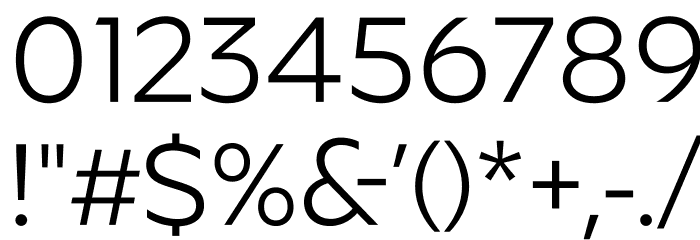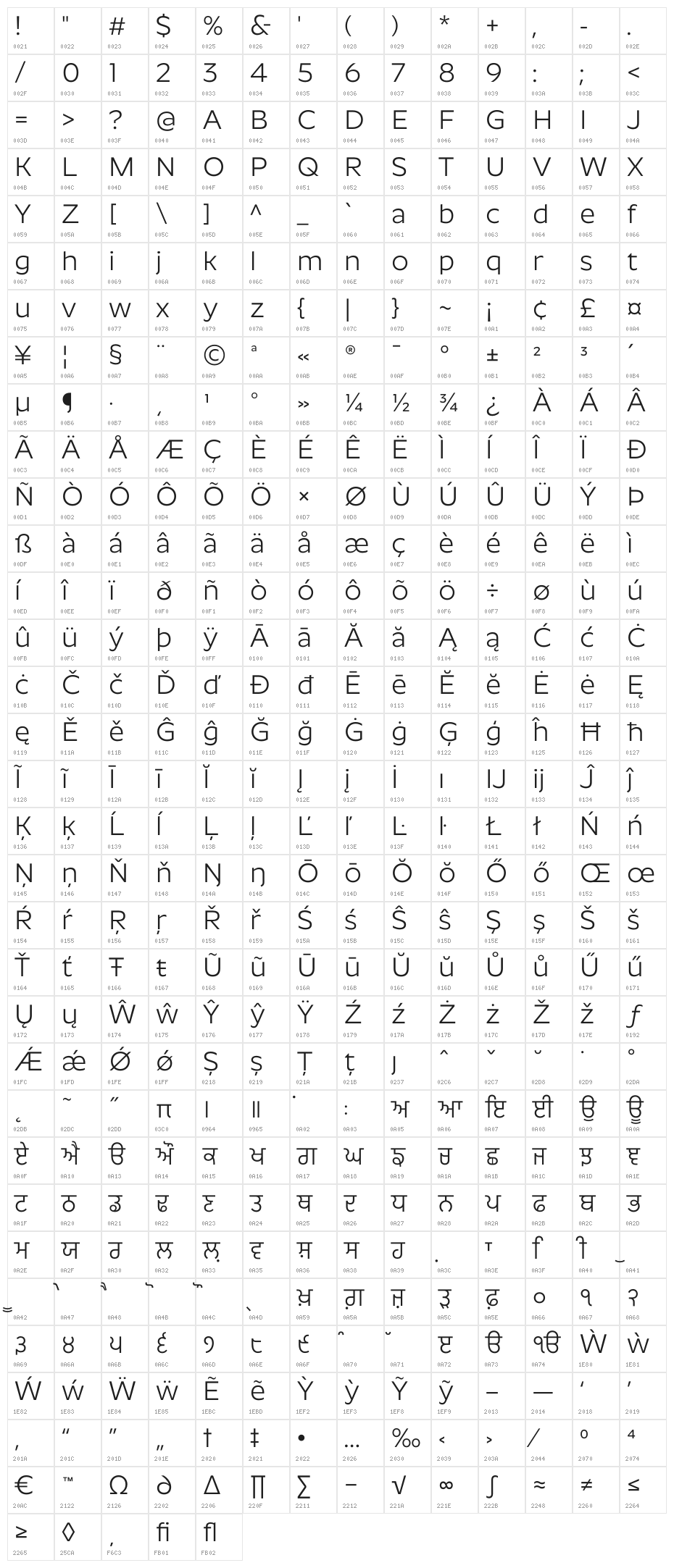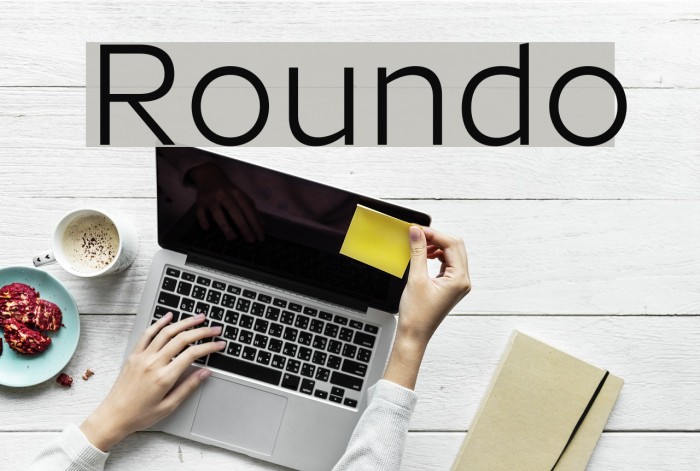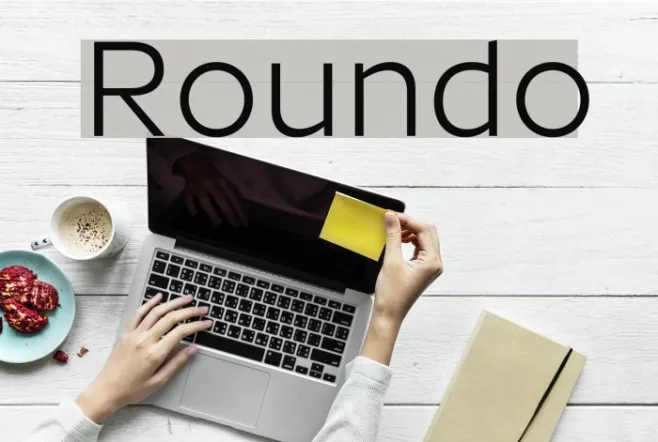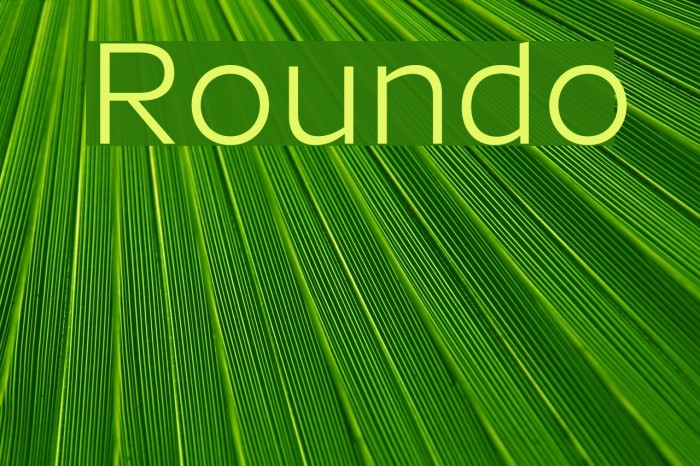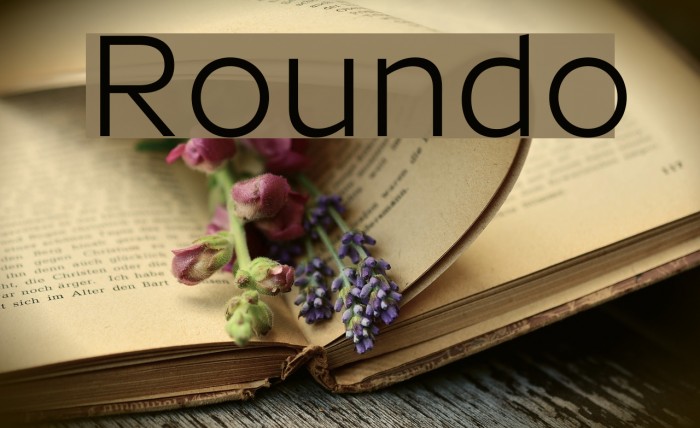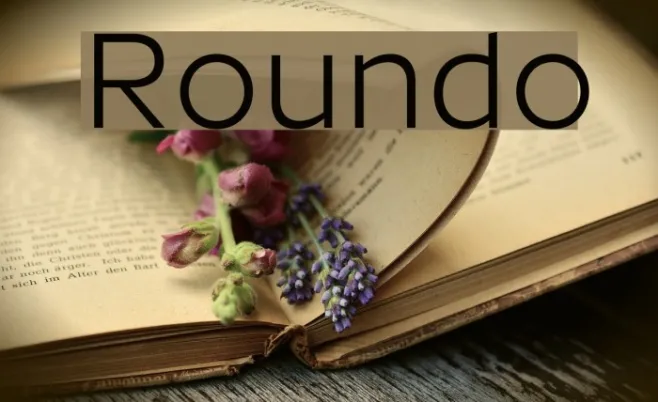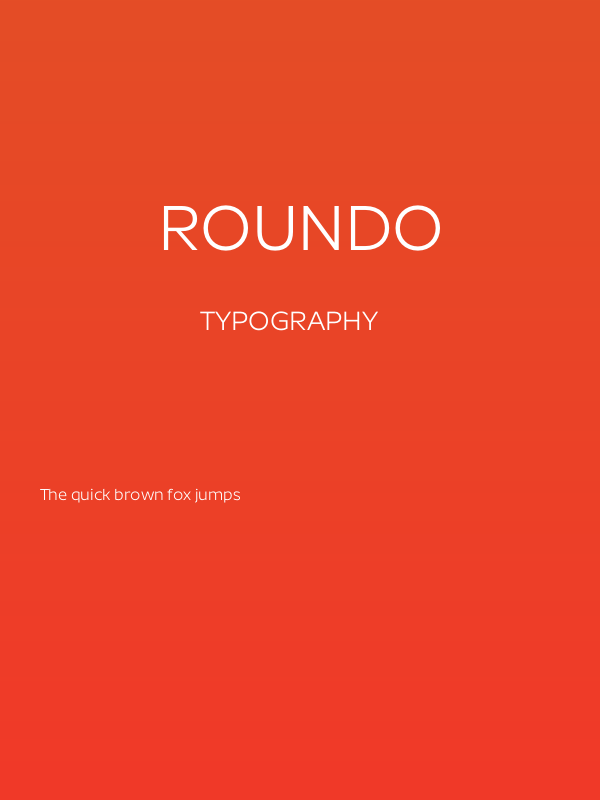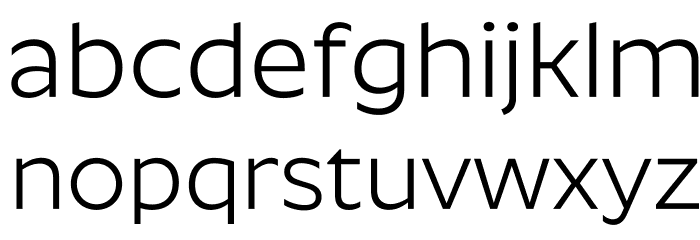
Roundo Font
Roundo Description
This font exhibits a clean and modern sans-serif style, characterized by its geometric shapes and uniform stroke widths. The letters are well-balanced with a consistent height and width, providing a harmonious appearance. The rounded edges give it a friendly and approachable feel, while maintaining a professional look. The numerals and special characters are designed with the same attention to detail, ensuring readability and aesthetic appeal across various applications.
Use CaseHeadlines, Body text, Logos
Proposed ProjectsIdeal for branding, web design, and user interfaces where a clean and modern look is desired.